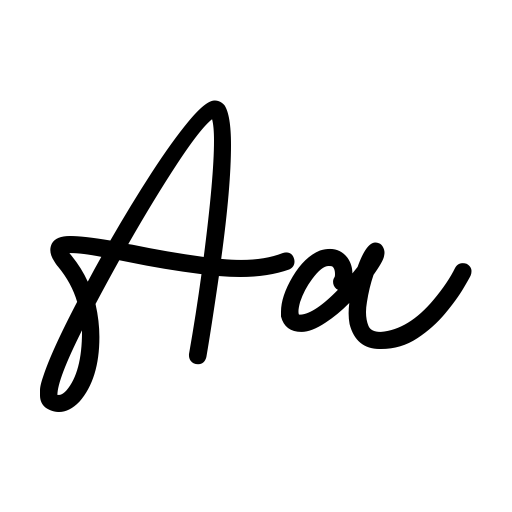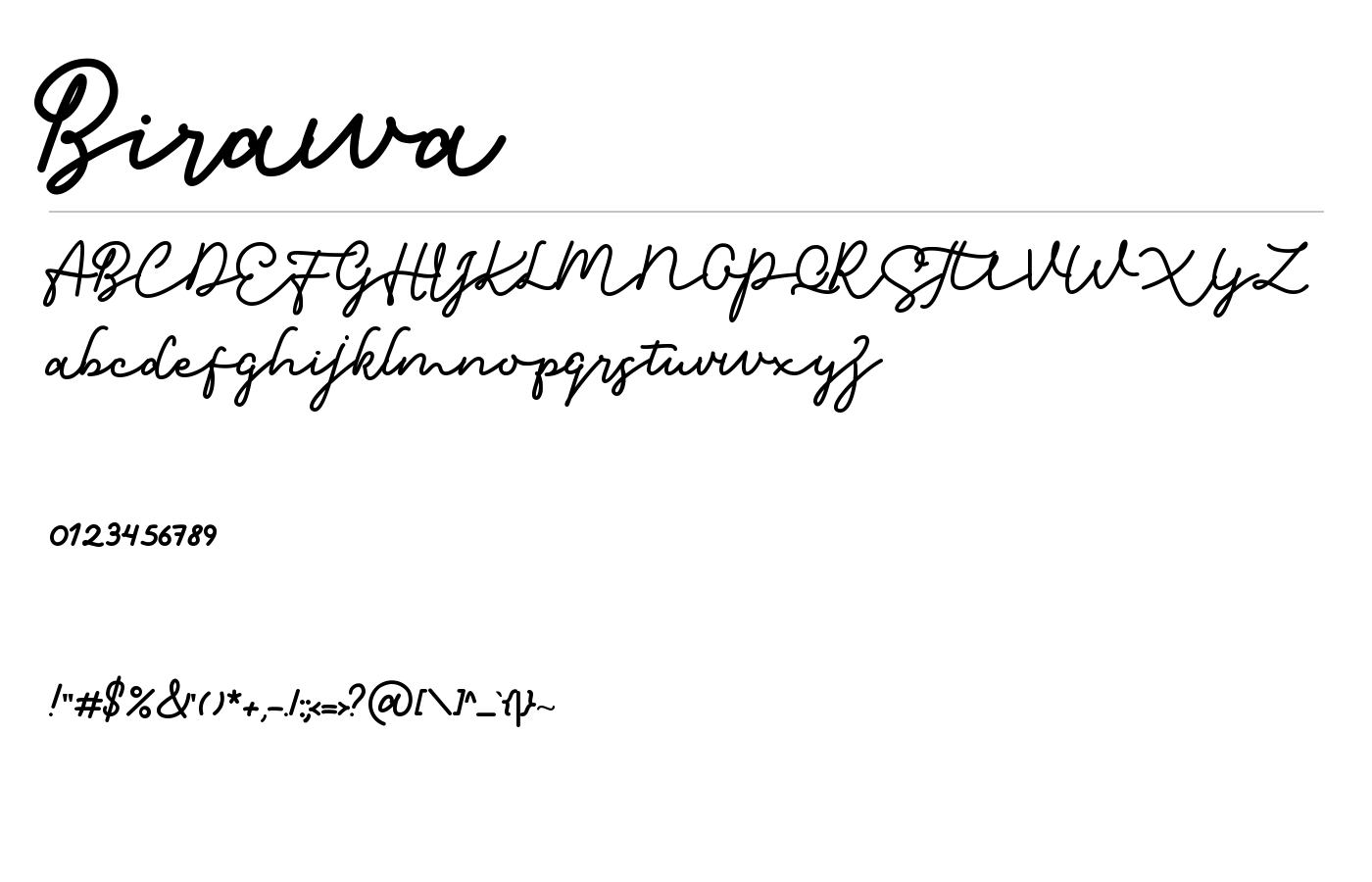
Birawa is a delicate script font with a light, flowing style that mimics natural handwriting. Its slender strokes and connected letterforms give it an elegant yet approachable feel, perfect for invitations, branding, and personal projects that seek a touch of warmth and creativity. This font works well for designs that want to convey friendliness and finesse without appearing overly formal.
Birawa Font
About Birawa Font